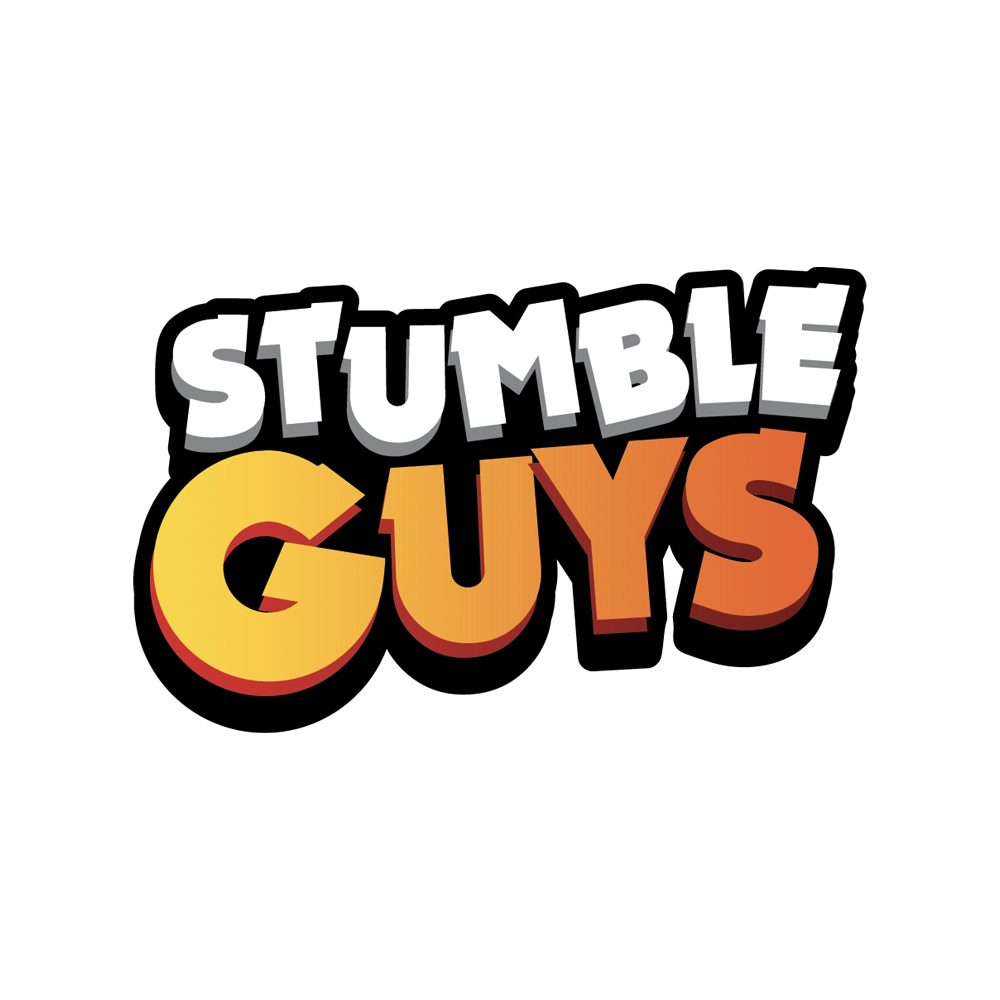
Stumble Guys Font
Fonts in UseStumble guys is a multiplayer party game where players compete in wacky obstacle courses to be the last one standing. It features colorful and quirky graphics, various game modes, and customizable characters.
The logo's font bears a strong resemblance to Dynamo designed by K. Sommer. However, for those seeking a free alternative to Dynamo's Bold style, Nougat by Dieter Steffmann is recommended. The game's buttons and menus utilize Lilita One, a free font designed by Juan Montoreano.